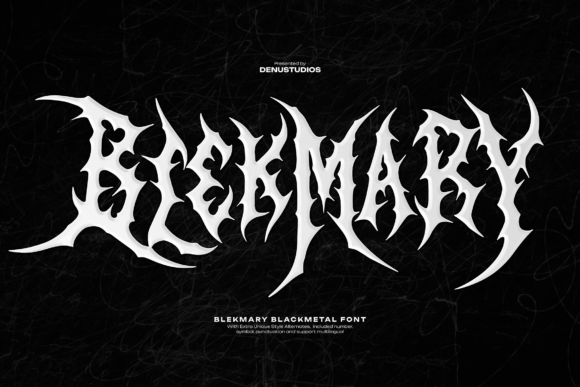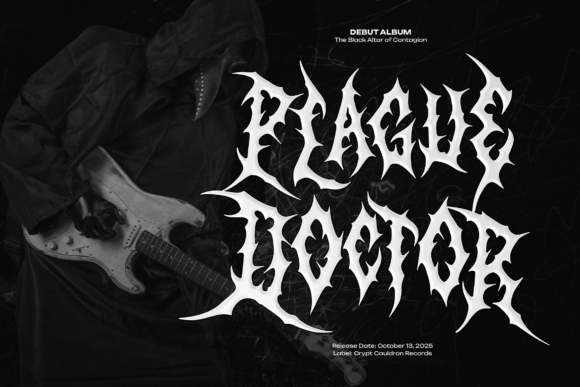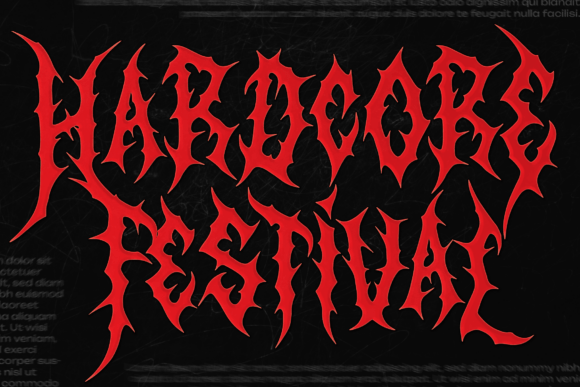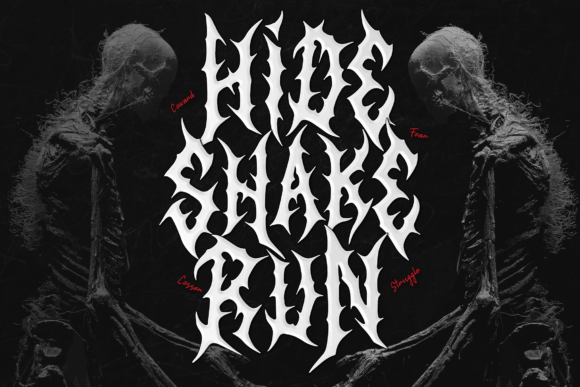
Blekmary Font: A Dark & Bold Display Font for Metal Logos & Posters
About the Blekmary Font
Make a bold statement with Blekmary Font, a powerful and memorable font. BlekMary is a black metal font, suitable for any projects such as: logos, branding projects, homeware designs, product packaging, mugs, quotes, posters, shopping bags, t-shirts, book covers, name card, invitation cards, greeting cards, label, photography, watermark, special events, and all your other lovely projects that need a Black Metal Font taste.
Blekmary Font Usage Examples
Blekmary Font Example